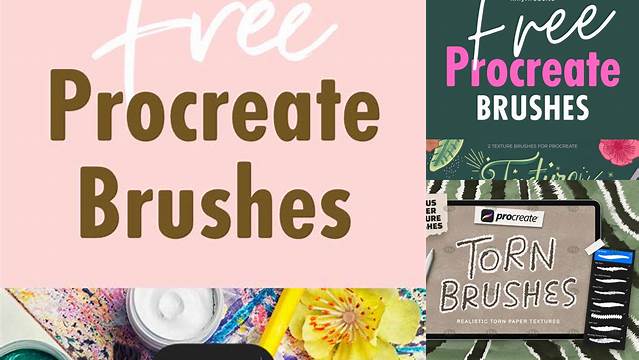
Free Font Brush Procreate: Get Yours Now!
Hey guys! Are you looking to spice up your Procreate projects with some amazing, hand-lettered flair? Well, you're in the right place! We're diving deep into the world of free font brushes for Procreate, and trust me, there's a ton of awesome stuff out there. Whether you're a seasoned digital artist or just starting out, having the right brushes can make all the difference. So, let's get started and find the perfect free font brush to elevate your Procreate artwork!
1. Understanding Procreate Brushes
Before we jump into the free font brushes, let's get a quick understanding of how brushes work in Procreate. Procreate brushes aren't just simple tools; they're highly customizable digital instruments that mimic real-world art supplies. They're created using brush shapes, grain textures, and various settings that control the brush's behavior, such as size, opacity, and pressure sensitivity. Understanding these settings allows you to fine-tune your brushes for different effects, making each stroke unique.
2. Why Use Font Brushes in Procreate?
Why should you bother with free font brushes in Procreate when there are already default brushes available? Well, font brushes offer a unique and personalized touch to your artwork. Unlike standard fonts, which can sometimes feel generic, font brushes allow you to create hand-lettered effects that are full of character and charm. This can be especially useful for creating logos, illustrations, and designs that need to stand out.
Using free font brushes also allows you to mimic the look and feel of traditional calligraphy or hand-drawn typography, without the need for physical art supplies. This is a huge advantage for digital artists who want to achieve a hand-crafted aesthetic in their work. Plus, with the ability to customize brush settings, you can create an endless variety of lettering styles. Whether you're going for a bold and edgy look or something more elegant and refined, free font brushes can help you achieve the perfect effect.
3. Where to Find Free Font Brushes for Procreate
Okay, so you're convinced that you need some free font brushes for Procreate. But where do you find them? The internet is full of resources, but it can be tough to sift through everything and find high-quality brushes. Here are a few places to start your search:
4. Installing Free Font Brushes in Procreate
Alright, you've found some free font brushes you want to try. Now what? Installing them in Procreate is super easy. Here’s a step-by-step guide:
5. Best Free Calligraphy Brushes for Procreate
Calligraphy brushes are a fantastic addition to your Procreate toolkit. They allow you to create elegant and flowing lettering styles that mimic traditional calligraphy. Finding free font brushes that are high-quality can be a game-changer. Some excellent options include brushes that simulate pointed pen calligraphy, brush pen lettering, and even more modern and experimental styles. Experiment with pressure sensitivity and stroke variation to achieve that authentic hand-lettered look.